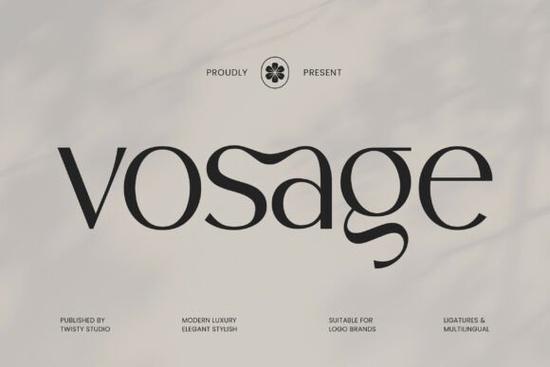
Finding the right typeface for luxury branding or high-end design projects can feel overwhelming. There are thousands of options, but few manage to strike the balance between modern minimalism and timeless sophistication. The Vosage Font does exactly that it's a clean sans serif typeface built for designers and brands who want their visuals to feel polished without being loud.
Whether you're working on a logo, packaging layout, editorial spread, or even a print-on-demand product line, having a reliable modern serif alternative that reads well at any size matters. Vosage was created with that need in mind, offering sleek letterforms and balanced proportions that work across both digital and print formats.
What Makes Vosage Different from Other Sans Serif Fonts?
Most sans serif fonts fall into two camps: overly geometric or too plain. Vosage sits in a sweet spot. Its letter shapes are refined but not cold. The spacing feels natural, and the overall texture on a page is smooth and easy to read. It doesn't try to grab attention with quirky details instead, it lets your content and layout do the talking.
This is especially useful if you're designing for:
- Luxury branding logos, business cards, brand guidelines
- Editorial design magazine layouts, lookbooks, catalogs
- Premium packaging cosmetics, food, fashion labels
- Website headers and hero text clean, modern web typography
- Social media graphics Instagram posts, Pinterest pins, ad creatives
The understated style means it pairs well with both bold display fonts and simple body text. You won't have to fight with it to make your layouts look cohesive.
Who Is This Typeface Best For?
Vosage works well for a wide range of creatives. If you're a small business owner building a brand identity from scratch, this font gives you a professional starting point that won't feel generic. For print-on-demand sellers, it's useful for designs where readability and elegance both matter think mugs, tote bags, and apparel with a minimalist aesthetic.
Graphic designers working on client projects will appreciate how versatile it is across different industries. And if you're a crafter or hobbyist who sells digital products on Etsy or Creative Market, a font like this adds real value to your toolkit.
How Does Vosage Hold Up in Real Projects?
From a practical standpoint, here's what stands out when using Vosage in actual design work:
- Scalability The letterforms stay crisp from small body text to large headlines.
- Pairing flexibility It complements both serif and sans serif fonts without clashing.
- Print clarity Clean edges and open counters make it reliable for offset and digital printing.
- Digital performance Works well on screen, including responsive layouts and smaller viewports.
If your projects lean toward a minimalist or high-end aesthetic, this typeface fits naturally. It doesn't require heavy styling or effects to look good which saves time during production.
What Should You Pair It With?
A font like Vosage benefits from smart pairing. Here are a few ideas:
- Use it for headlines with a lighter sans serif or classic serif for body copy.
- Pair it with a script or handwritten font for contrast in logo designs.
- Combine it with bold typography for editorial layouts where hierarchy matters.
The key is to keep the overall palette simple. Vosage shines when the design around it isn't cluttered.
Quick Checklist Before You Buy
Before purchasing, make sure to:
- Check the license confirm it covers your intended use (commercial projects, POD, client work).
- Review the full glyph set look for multilingual support and special characters if needed.
- Consider your brand tone this font works best for clean, modern, and premium-feeling designs.
Tip: Start by using Vosage in a single project like a business card or social media template and see how it feels before committing it to a full brand system. A small test run helps you confirm it matches your creative direction.